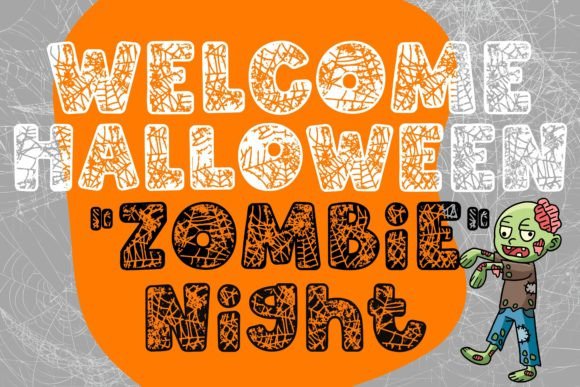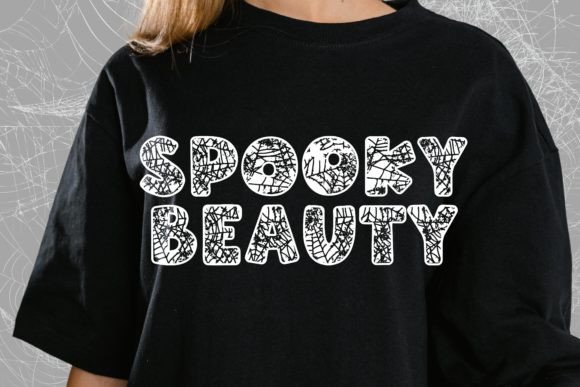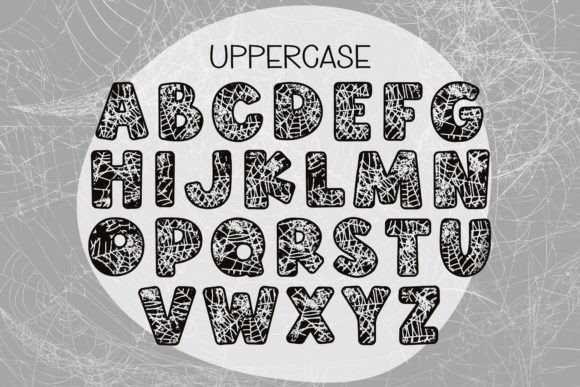
Grunge Cobweb Font
About the Grunge Cobweb Font
Experience the unique personality of Grunge Cobweb Font, a font designed for impact. Grunge Cobweb is designed in a spooky and adorable decorative font style. It would be an awesome addition to your lovely projects and also your child-related project such as back to school, Halloween party decorations and much more.
Grunge Cobweb’s playful yet slightly spooky personality makes it ideal for projects needing a touch of whimsical darkness. It excels in headlines, short text blocks on posters or packaging, and branding for products aimed at children or young adults with a gothic or Halloween theme. Avoid using it for body text or lengthy paragraphs; its decorative nature makes extended reading difficult.
Pairing Grunge Cobweb with a clean sans-serif like Open Sans for body copy creates a strong contrast, balancing the font’s playful energy with readability. Alternatively, a more elegant serif such as Playfair Display could add a sophisticated counterpoint, enhancing its slightly spooky feel for high-end packaging or branding.
Consider its limitations in user interfaces (UI) due to low legibility in small sizes. The font’s inherent decorative style is best suited for display purposes where visual impact is prioritized over large amounts of text.